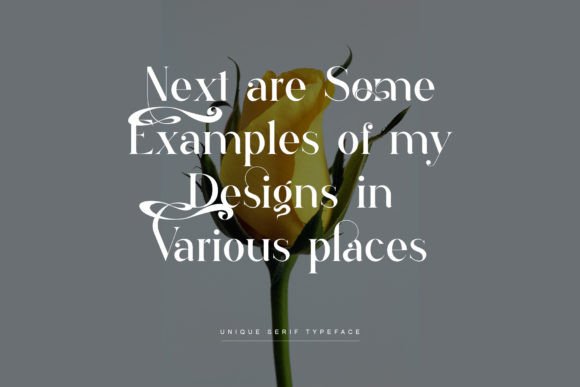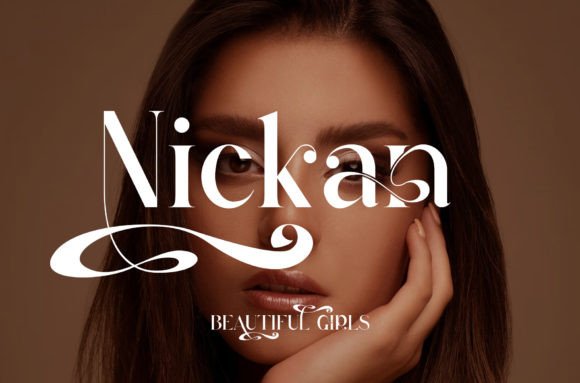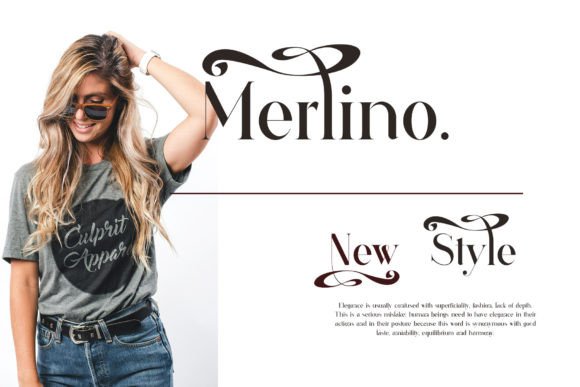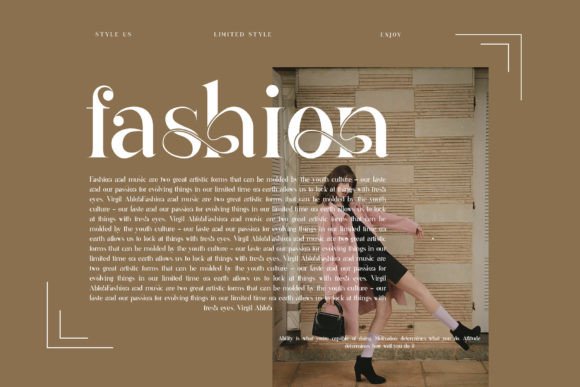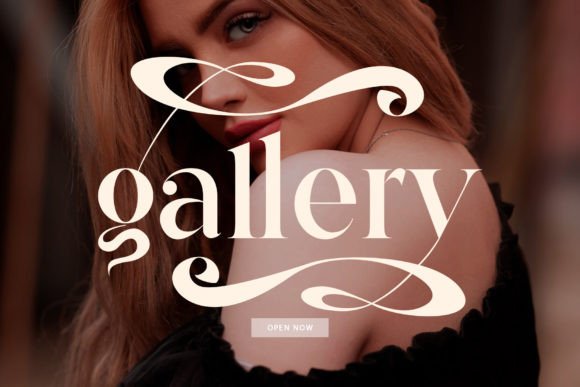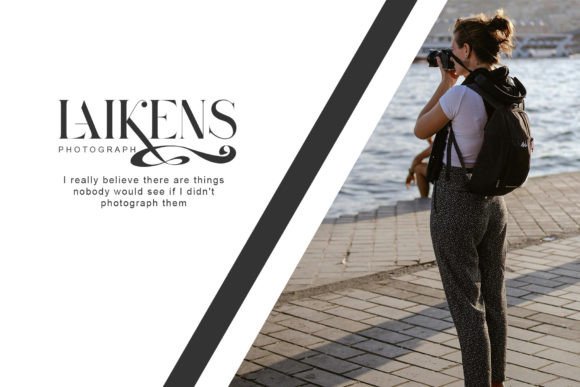
Introduction to Giarol Font
Have you ever stared at a blank canvas, trying to bring your creative vision to life, only to be stumped by the perfect font? That’s a feeling many designers know all too well. But what if you had a font that effortlessly combined elegance and modernity, making it the perfect addition to your next design project?
Enter the Giarol Font, a stunning serif typeface that’s equal parts nostalgic and cutting-edge. With its high-quality design, this font is the ultimate design resource for creatives looking to elevate their work. Whether you’re working on a logo, magazine, or social media campaign, the Giarol Font is ready to be downloaded and used right away – complete with a transparent background for seamless integration into your design.
As a valuable addition to your design arsenal, the Giarol Font offers a level of sophistication and style that’s hard to find in free download fonts. But don’t let its high quality fool you – this font is accessible to designers of all levels, making it the perfect choice for your next creative project.
Key Features of Giarol Font
- Unique and Creative Design: Giarol Font is a high-quality design resource ideal for creative projects that require a unique touch.
- High-Quality Typography: This font offers a sophisticated and elegant appearance, making it perfect for use in various design contexts.
Honest Review: Giarol Font
I recently had the chance to work with the Giarol Font, and I must say it’s been a pleasant experience. As a designer, I’m always on the lookout for high-quality design resources that can elevate my creative projects.
Here are some things that work well with the Giarol Font:
- ✨ Unique and stylish design that adds a touch of elegance to any project.
- ✨ Highly legible and easy to read, making it perfect for body text or headings.
- ⚠️ Limited character set, which may not be suitable for projects that require a wide range of characters.
- ⚠️ Not as versatile as some other fonts, which may limit its use in certain design contexts.
Overall, I’m impressed with the Giarol Font and would definitely recommend it to designers looking for a high-quality, stylish font for their creative projects. With a little creativity and planning, it can be a valuable addition to any design arsenal.
Giarol Font is ideal for various design projects, including business cards, brochures, and social media graphics. Its high-quality design makes it perfect for creative professionals and non-designers alike.